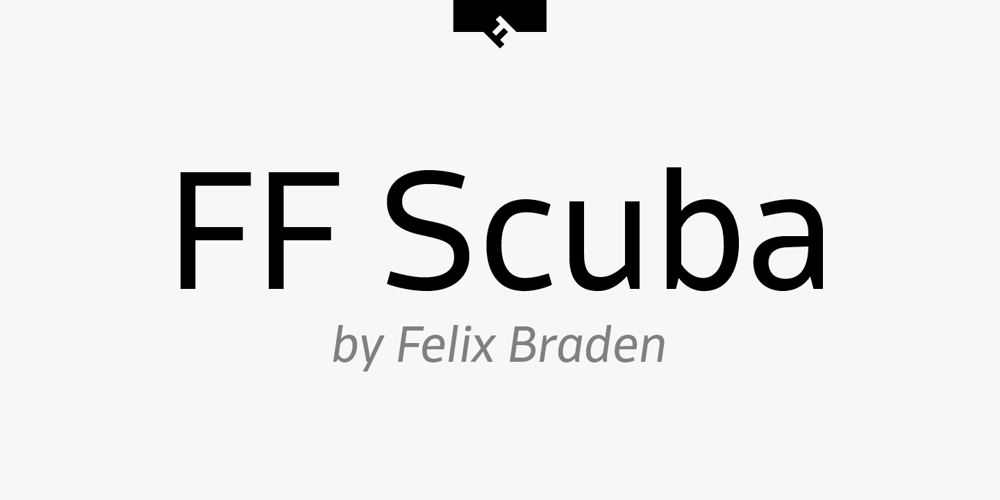
FF Scuba Font Family was designed by Felix Braden and published by FontFont. FF Scuba contains 16 styles and family package options. German type designer Felix Braden created this sans FontFont in 2012. The family has 16 weights, ranging from Thin to Black (including italics) and is ideally suited for advertising and packaging, editorial and publishing, logo, branding and creative industries, poster and billboards, wayfinding and signage as well as web and screen design. FF Scuba provides advanced typographical support with features such as ligatures, alternate characters, case-sensitive forms, fractions, super- and subscript characters, and stylistic alternates. It comes with a complete range of figure set options – oldstyle and lining figures, each in tabular and proportional widths.In 2013, FF Scuba received the CommArts award and was also selected as one of Typographica’s favorite typefaces of 2012.